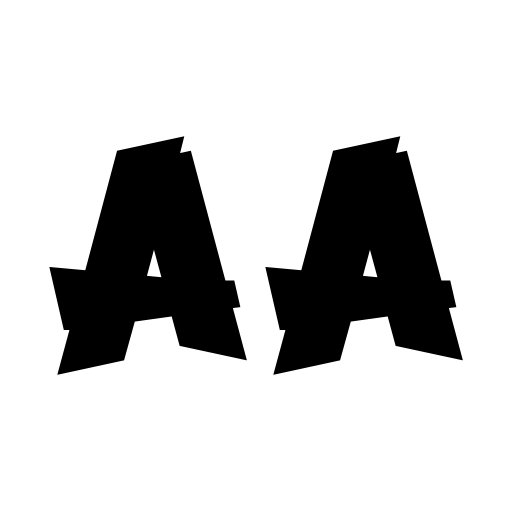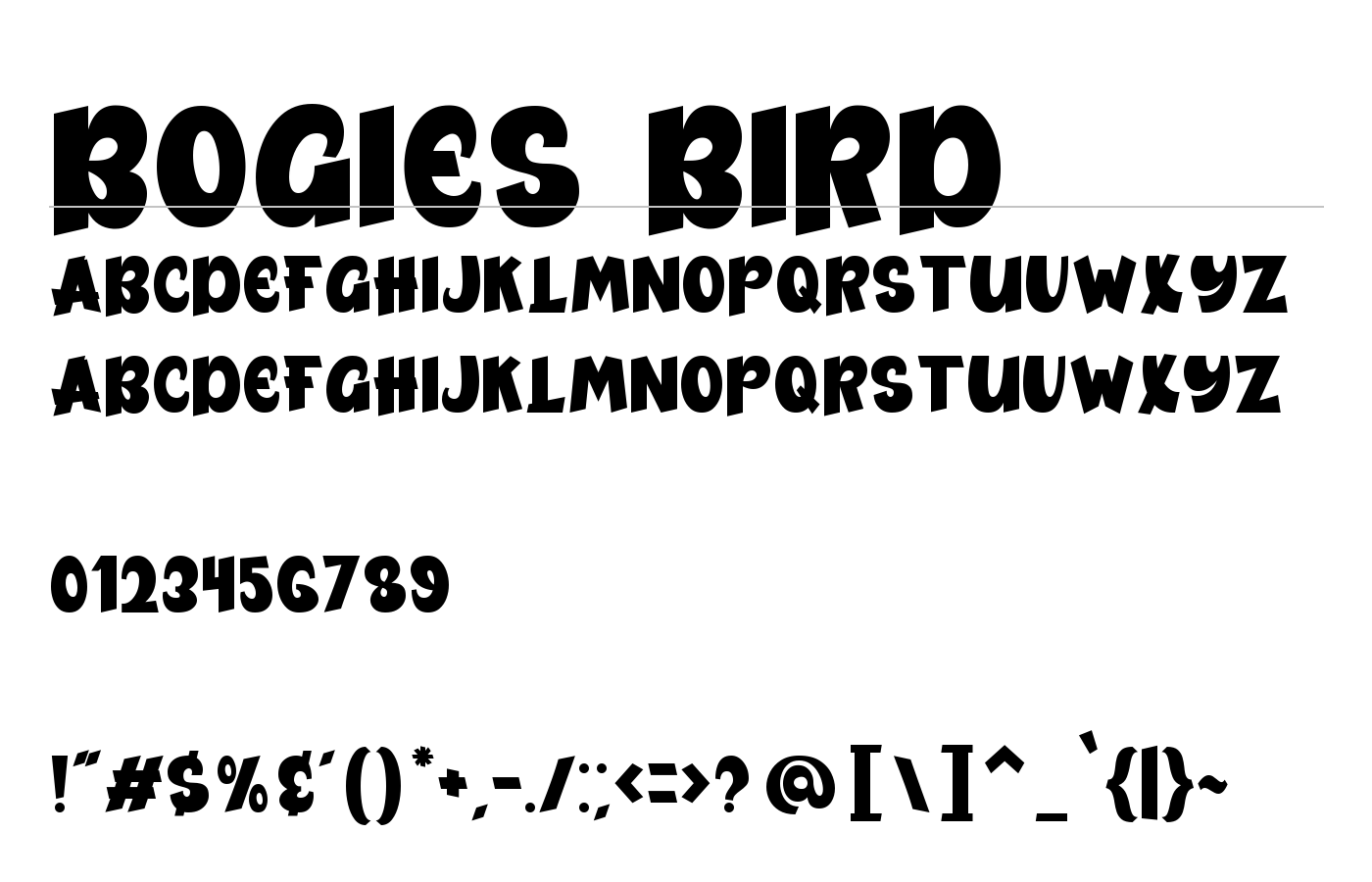
Bogies Bird is a bold, playful sans serif font with a unique, irregular shape that gives it a fun, quirky personality. Its heavy weight, wide proportions, and slightly tilted characters make it eye-catching and energetic, perfect for creative headlines, posters, or branding that wants to stand out with a cheerful, informal vibe. This font works best where a lively and approachable style is needed to attract attention and convey a sense of fun.
Bogies Bird Font
About Bogies Bird Font
| Font family | Bogies Bird Font |
| Designer | Vava Aryanto |